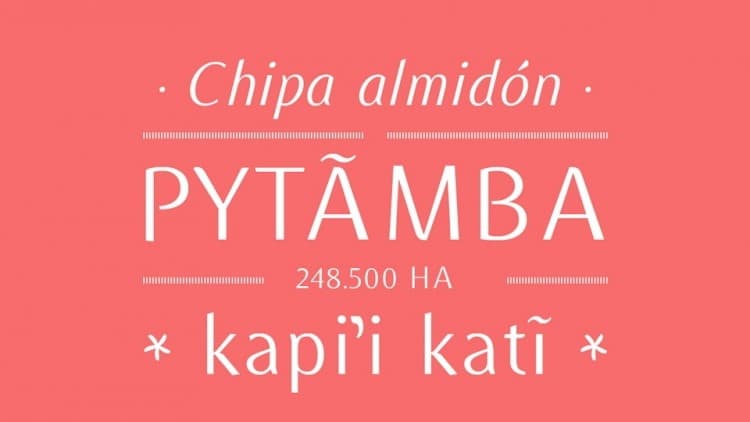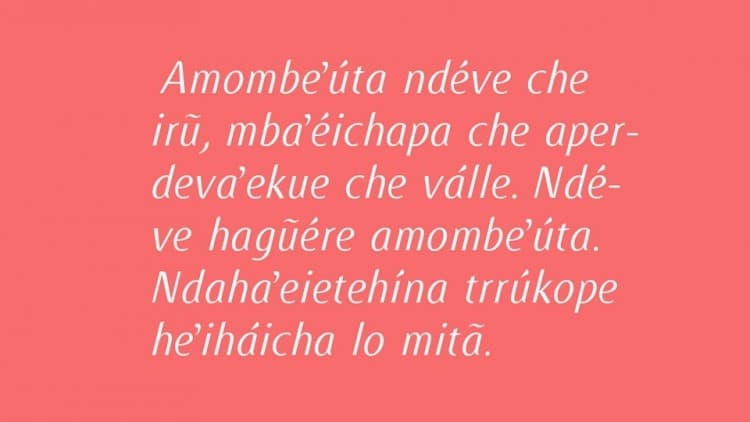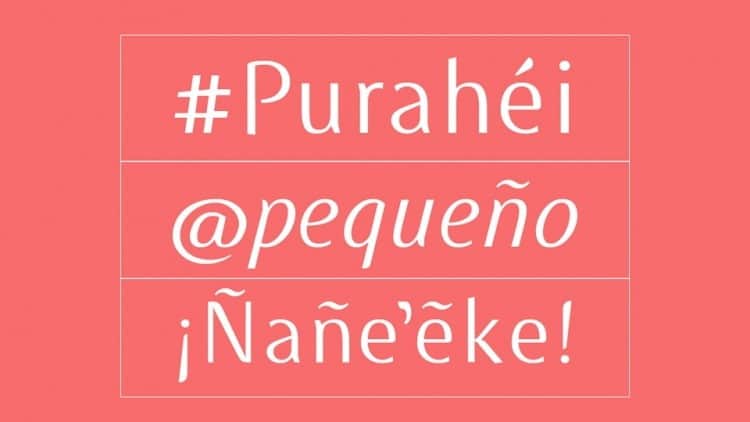
Jeroky Sans Serif Font is a humanist sans typeface, created to bring a fun and warm spirit into a minimalistic design. It’s designed and shared by Juan Heilborn. This font is a sans serif typeface designed for educational and informative texts, dynamic but highly readable with Guarani and Spanish support.